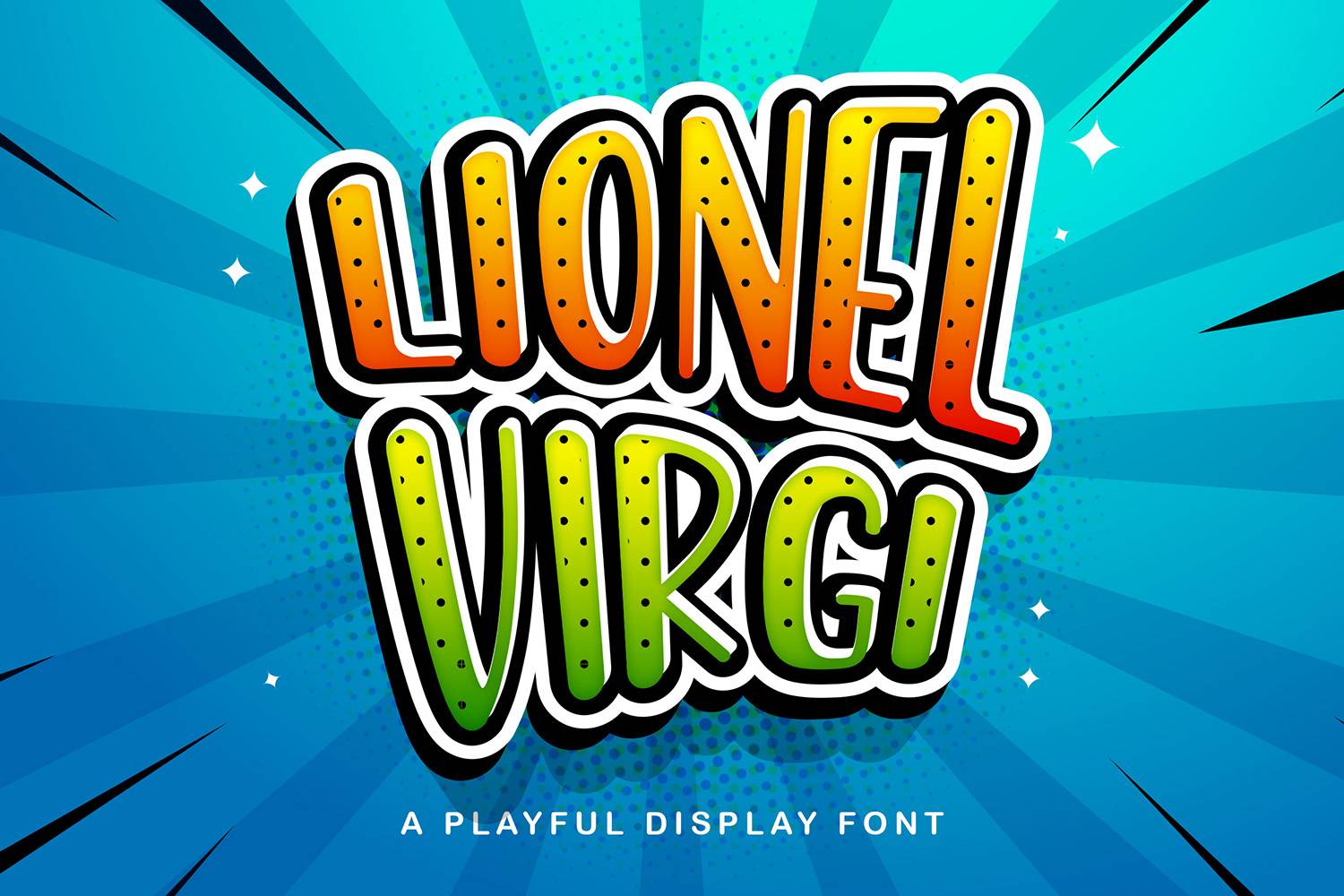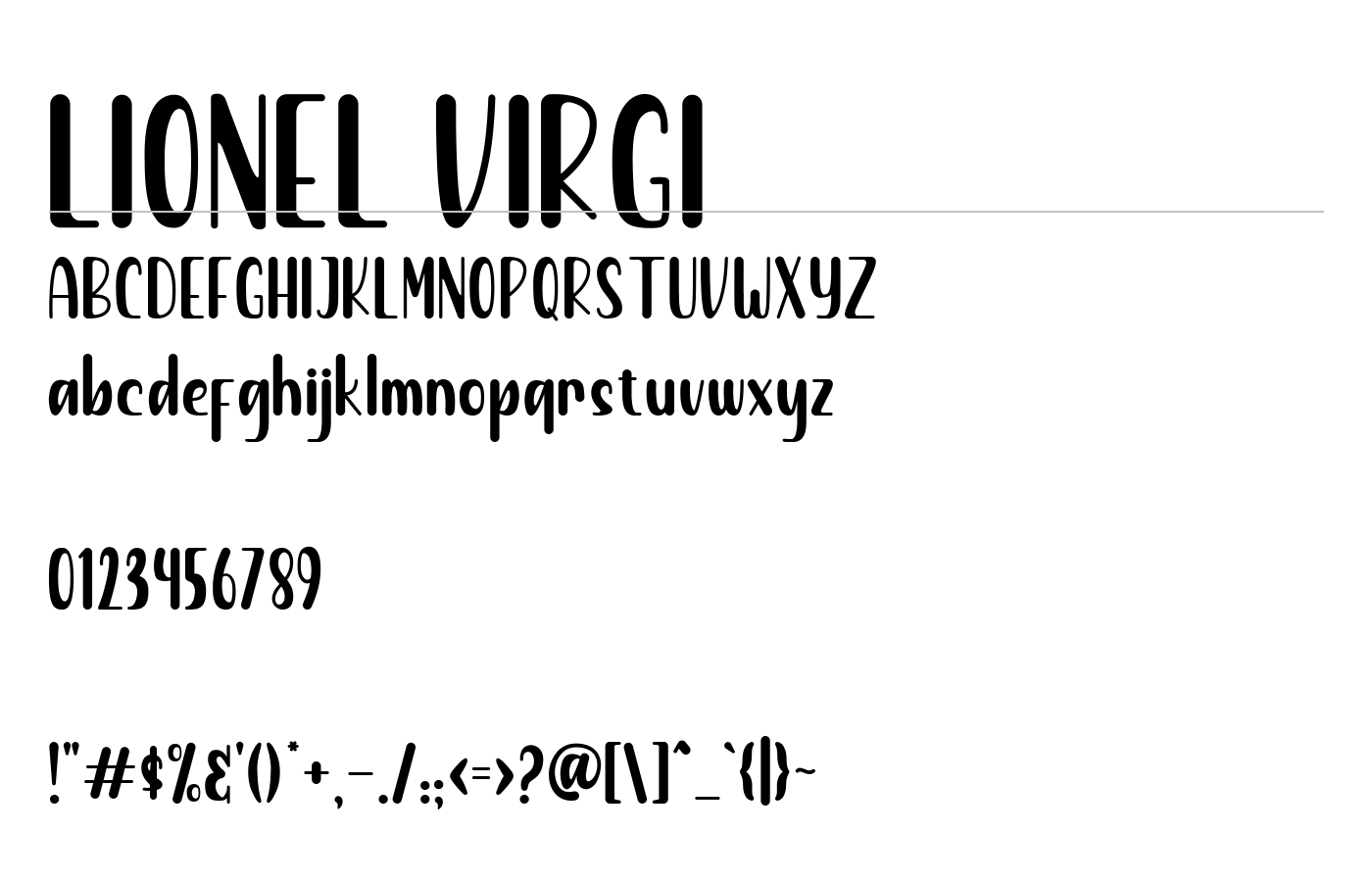
Lionel Virgi is a playful and narrow sans serif font with a quirky, hand-drawn feel. Its tall, condensed letterforms and moderate stroke contrast give it a unique personality that fits well with fun, creative, or casual branding. This font works best in headlines, logos, and packaging where a lively and approachable style is desired.
Lionel Virgi Font
About Lionel Virgi Font